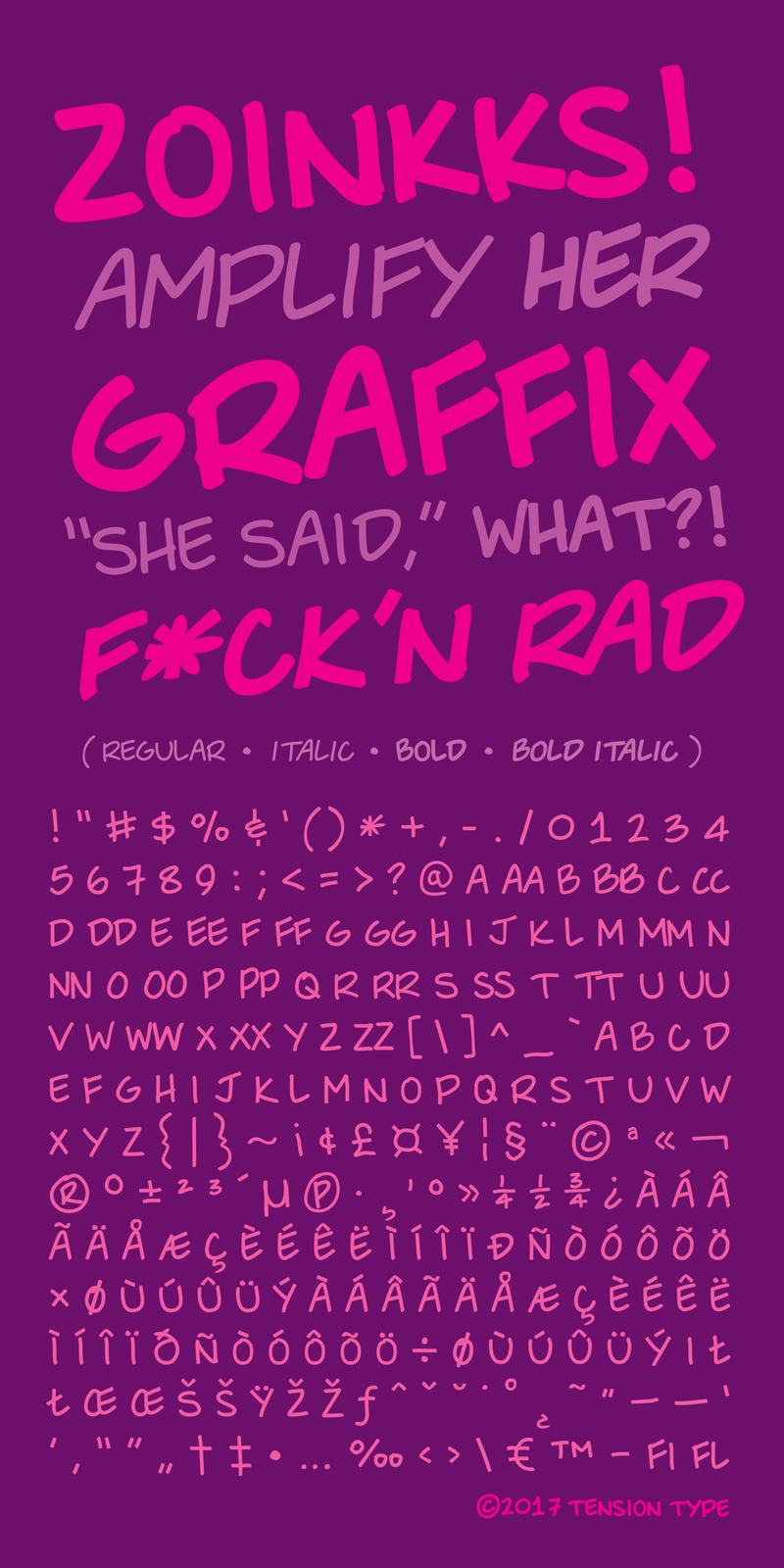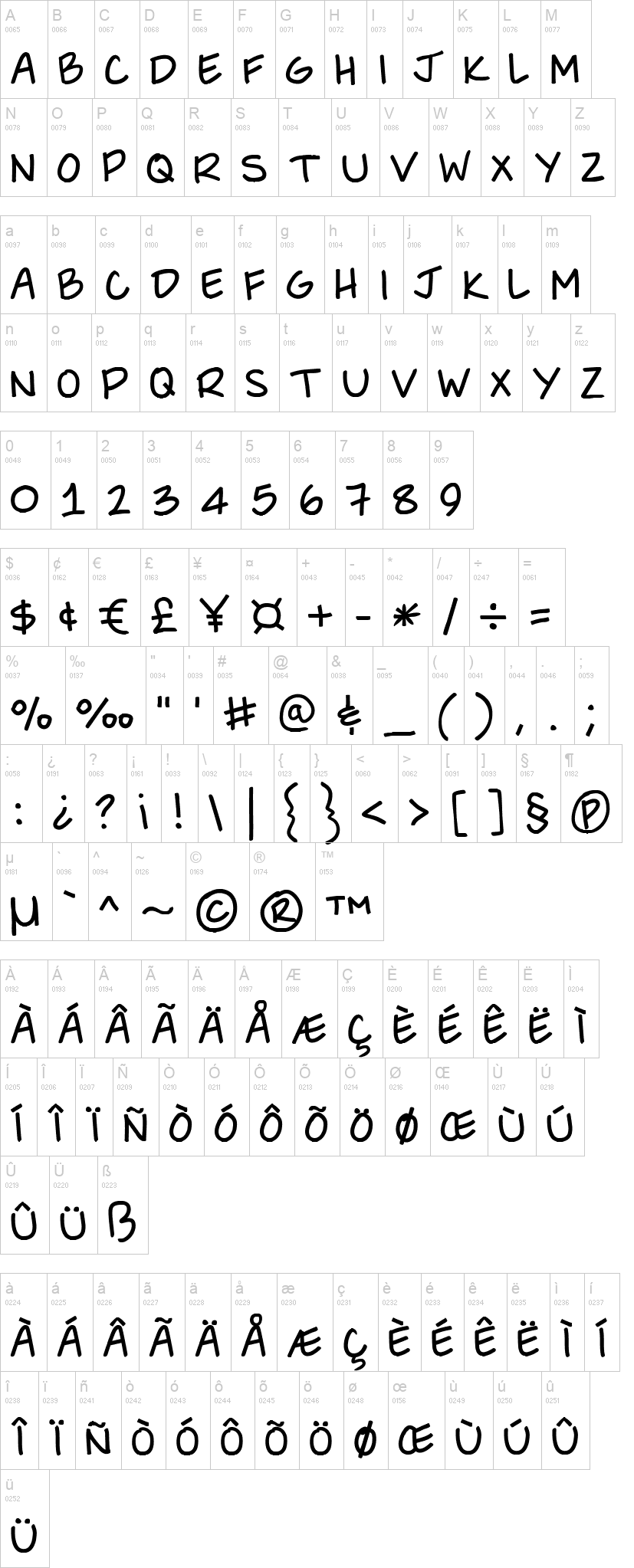
SheSaidItalic.ttfSheSaidBold.ttfSheSaidBoldItalic.ttfSheSaidJiffy.ttfSheSaidJiffyItalic.ttfSheSaidJiffyBold.ttfSheSaidJiffyBoldItalic.ttfNote of the authorThis is a graphic novel font designed for the Amplify Her graphic novel. Check out the project here https://www.amplifyher.com.